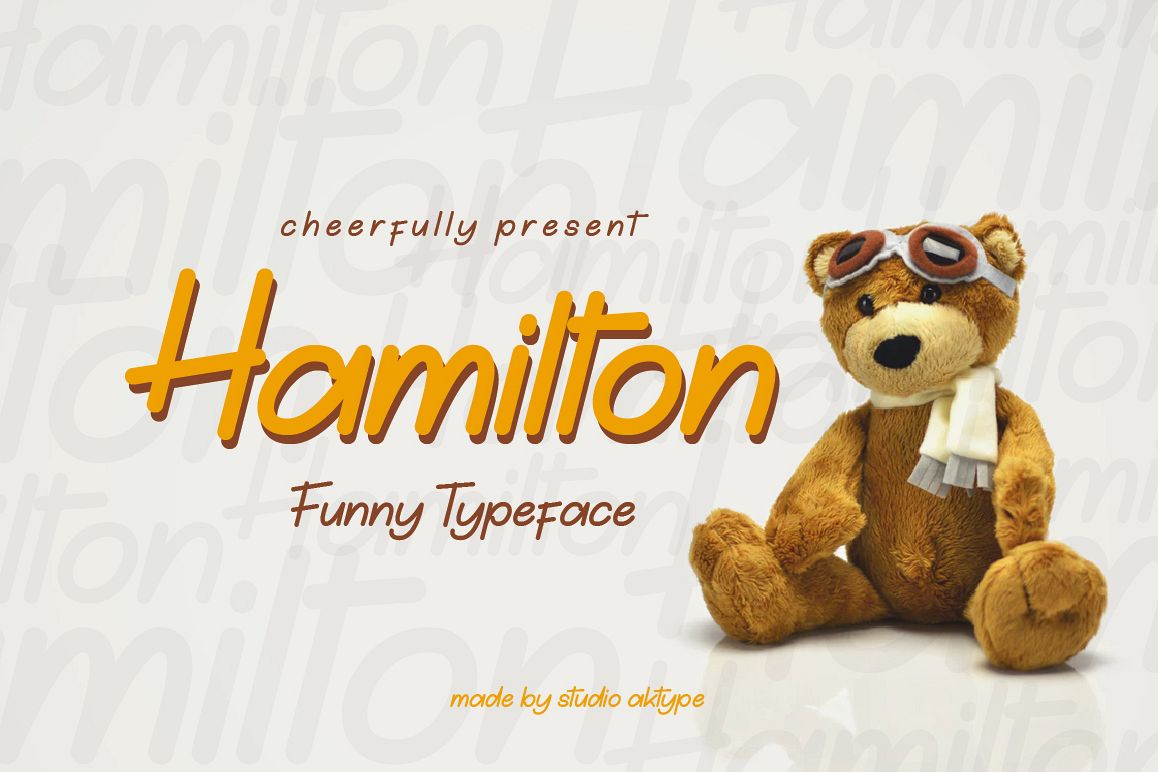
Hamilton Funny Typeface
hi ;) introduce our new Funny Typeface
He was named HAMILTON
This font is suitable for cheerful and funny designs, children's themes and cartoons. can be applied to the design of shirts, greeting cards, banners, photobooks, comics, and various other cute designs.